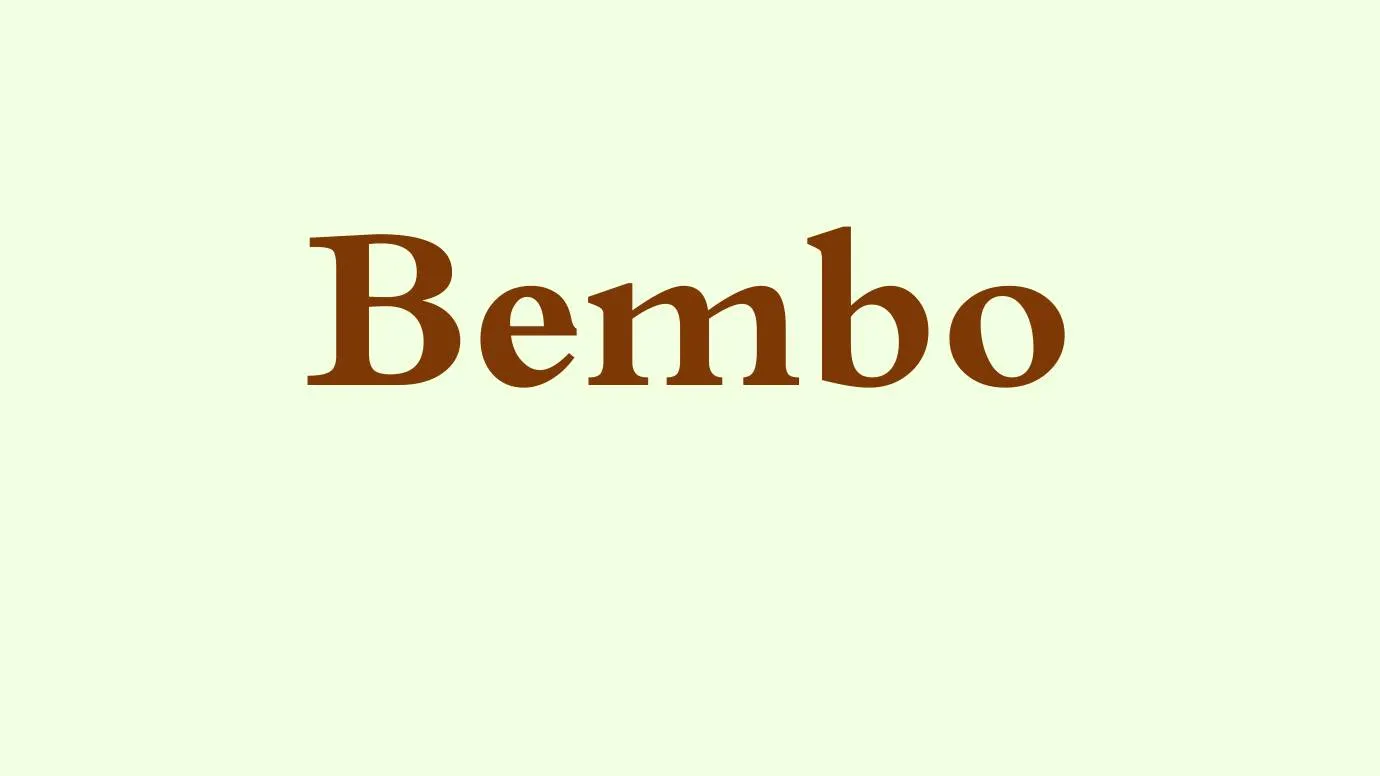
Bembo is known as the serif typeface that is designed by Francesco Griffo and this was released by Monotype Imaging. This typeface got so much appreciated because of its use in the body text ad it was released many years back.
There are many different variants of this typeface are available that you can use with kokila font. From the day of this typeface release, this is known to be one of the most attractive typefaces of all time.